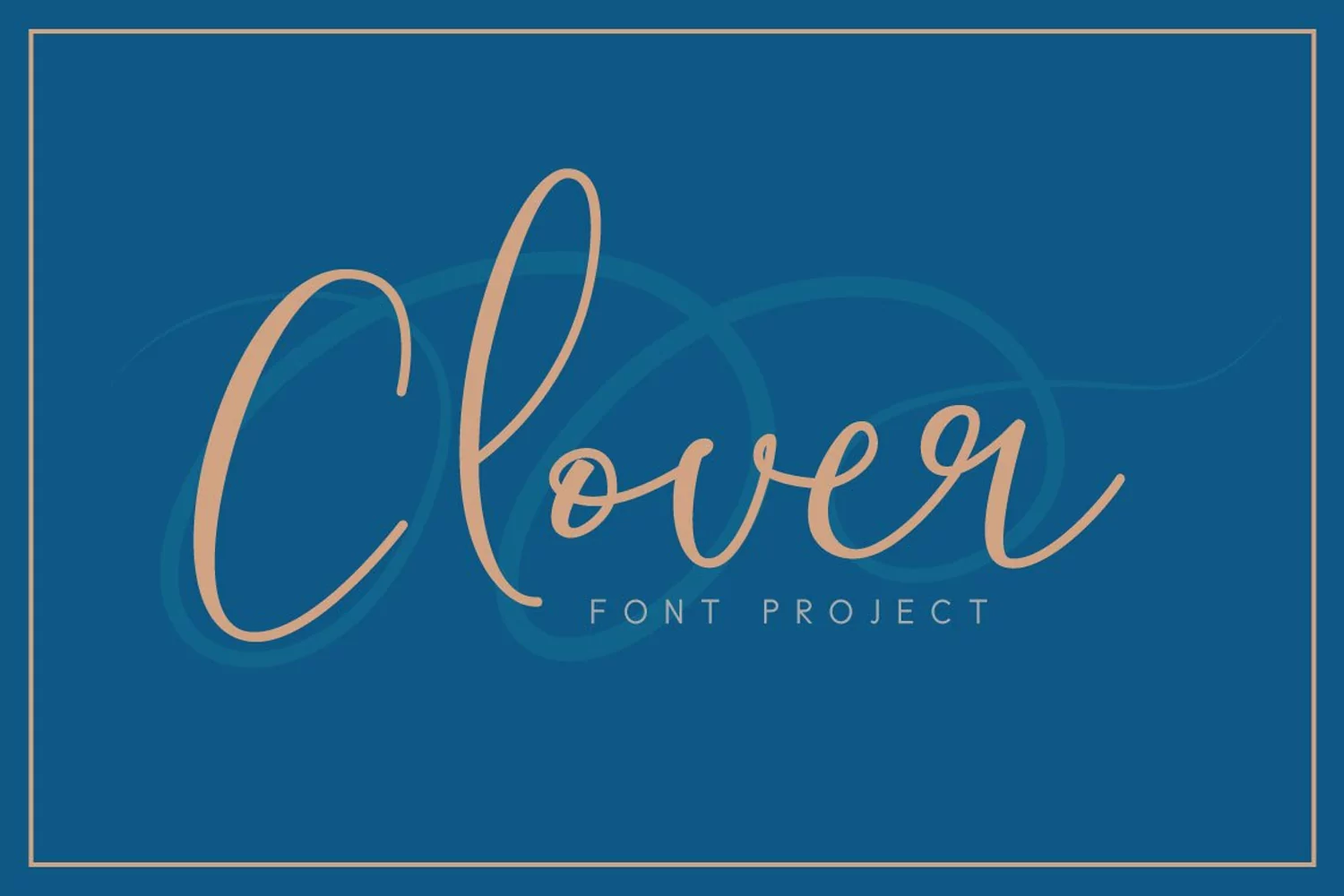
Clover is a charming, stylish script font. It flirts with a serious side yet offers a playful aspect as well. It sports deep curves for a touch of drama and intrigue. The Clover font is an ideal addition to your font stash of awesome. On top of ligatures, you also receive upper and lower case letters, numbers and punctuation.